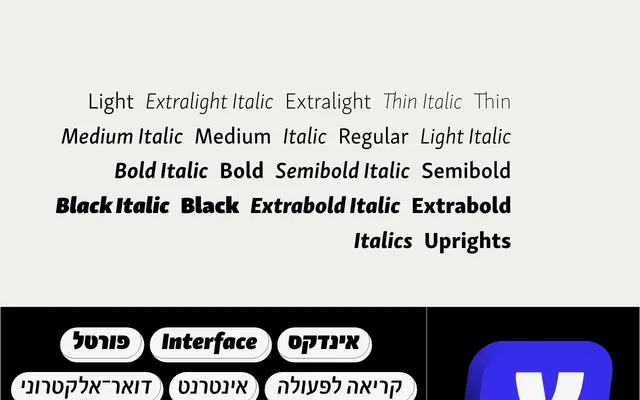
Skolar Sans Hebrew
Rosetta · Eran Ben Barak · 2024
A Hebrew extension of the Skolar Sans family, drawn by Eran Ben Barak to match the rhythm and density of its Latin counterpart across nine weights with italics.
Designed by Eran Ben Barak and released in 2024, the family achieves a consistent typographic colour across Hebrew and Latin through systematic grouping of letterforms that respects conventional Hebrew proportions. The low-contrast design is tuned for legibility across editorial texts and data-rich interfaces, with particular care given to nikud diacritical marks and Latin punctuation adapted for Hebrew contexts. Italic styles include an alternative flat-top mem for typographers who want a touch of distinction.
A low-contrast sans-serif with humanist proportions, designed to match the rhythm and density of the Latin Skolar Sans while respecting conventional Hebrew letterforms.